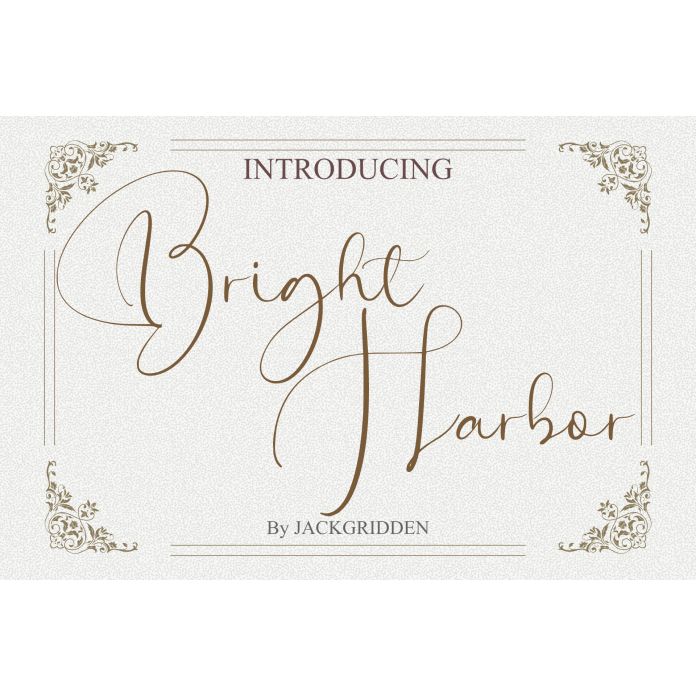
Bright Harbor is a gracefully flowing script font inspired by the tranquil beauty of a seaside haven. With its elegant curves and gentle strokes, this font captures the essence of a serene coastal retreat, where the sun dances on the water and the breeze whispers through the palms. Each letter exudes a sense of warmth and sophistication, inviting you to immerse yourself in its timeless charm.